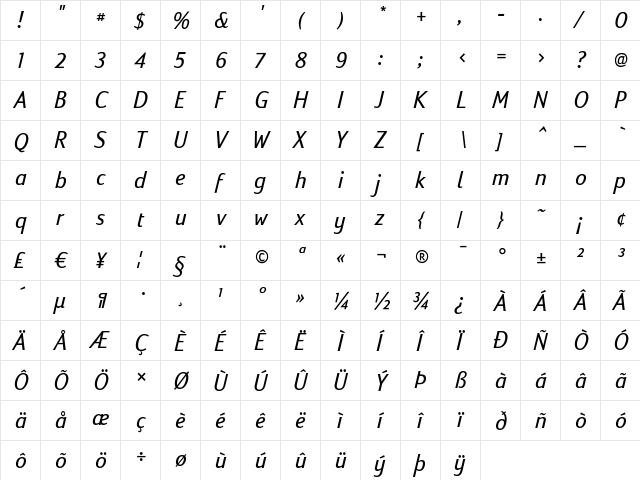
Fargo Rg DaMa Italic
| Foundry | Dalton Maag Ltd. |
| Designer | Dalton Maag Ltd. |
Design Context for Fargo Rg DaMa Typeface
Fargo Rg DaMa is a composed and adaptable typeface that performs quietly and consistently across a wide range of design contexts. The slanted form adds forward momentum and visual energy.